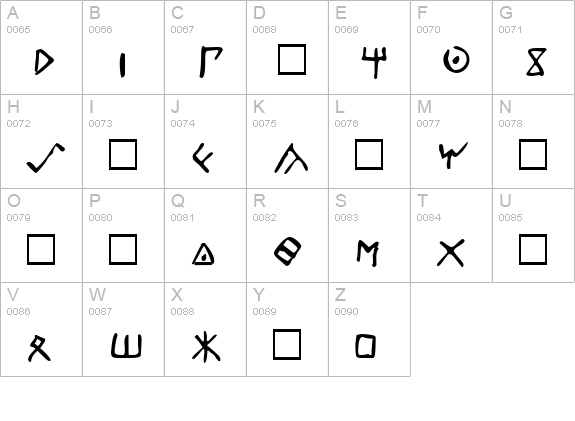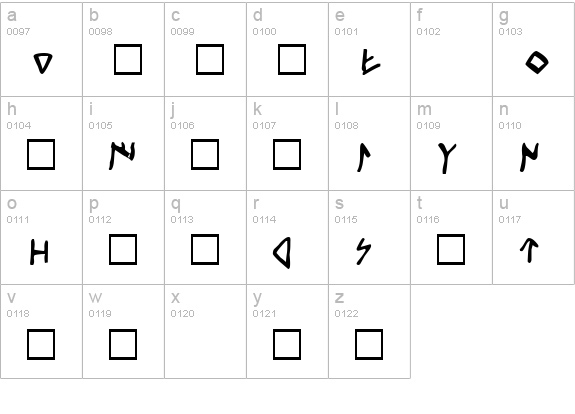
Celtiber Font Details
Celtiber font is a stunning display typeface that combines classic elegance with a touch of modern flair. Its intricate details and unique letterforms make it perfect for adding a sophisticated touch to any design project. This versatile font is ideal for headlines, logos, branding, and more. The Celtiber font is not only visually striking but also incredibly easy to read, making it suitable for a wide range of applications. Its bold strokes and clean lines ensure that your message is delivered with clarity and impact. Best of all, Celtiber font is completely free to download at FontsMarket.com. Whether you're a professional designer or a casual user looking to elevate your projects, this font is a must-have addition to your collection. Download Celtiber font today and unleash your creativity with this exquisite typeface.